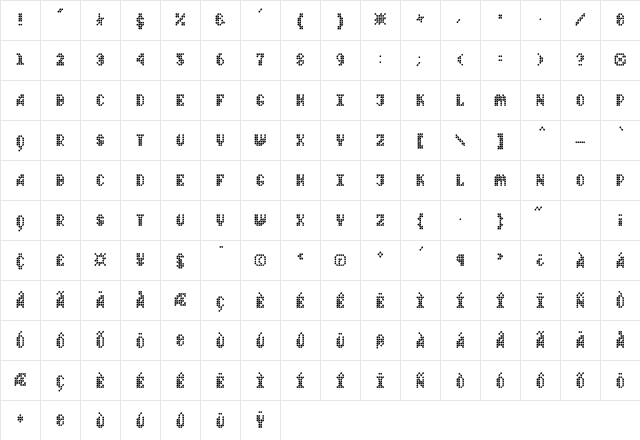
Quad ChannelThree Free Font
Quad ChannelThree
Style: ChannelThree
Quad Family
Quad ChannelThree
Design Context for Quad
Quad is a composed and adaptable typeface that performs quietly and consistently across a wide range of design contexts.